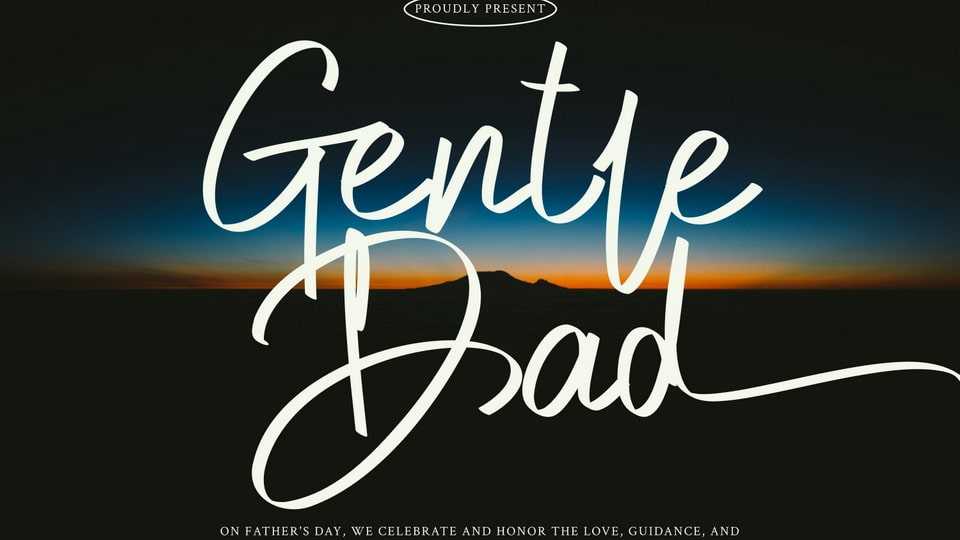
Download Gentle Dad font, a stunning script eloquently encapsulates the profound emotions tied to fatherly love. Use Gentle Dad to infuse your Father’s Day cards with genuine sentiment.